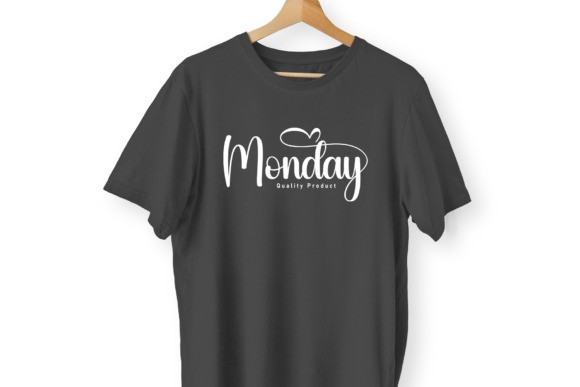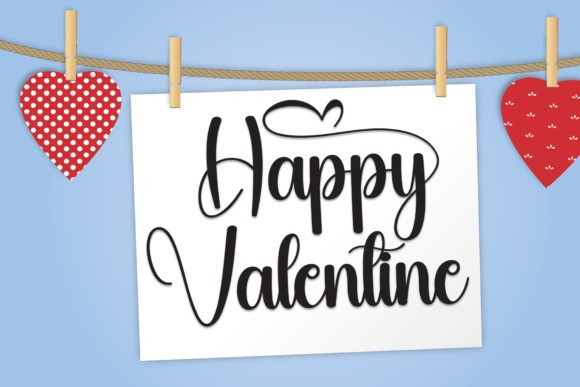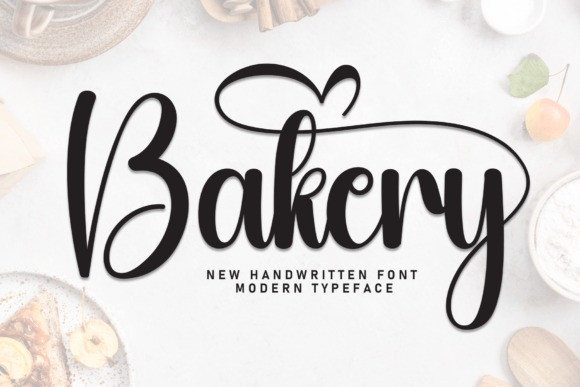
Bakery Font
Bakery Font is a charming handwritten font imbued with a sense of freshness and casual elegance. Its fluid strokes and organic lines evoke a laid-back vibe, making it perfect for various design projects. Whether used for branding, invitations, or social media graphics, Bakery adds a touch of warmth and personality.